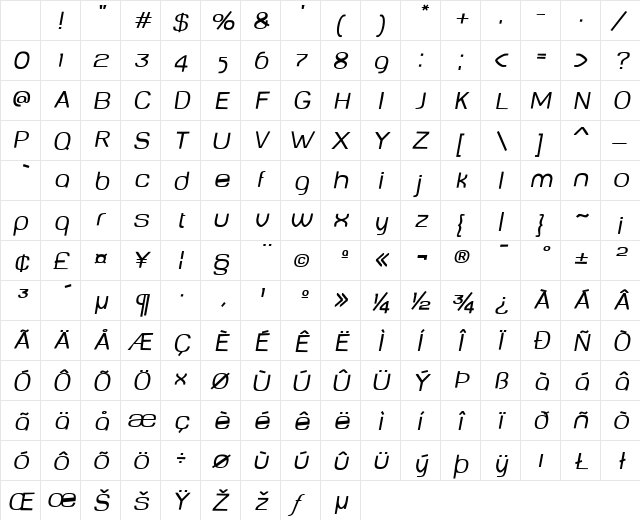
BabyMinePlump is a composed and adaptable typeface that performs quietly and consistently across a wide range of design contexts. The slanted form adds forward momentum and visual energy.
Pro Tip: Use BabyMinePlump for emphasis, pull quotes, and subheadings where its slanted energy can add rhythm to the layout.